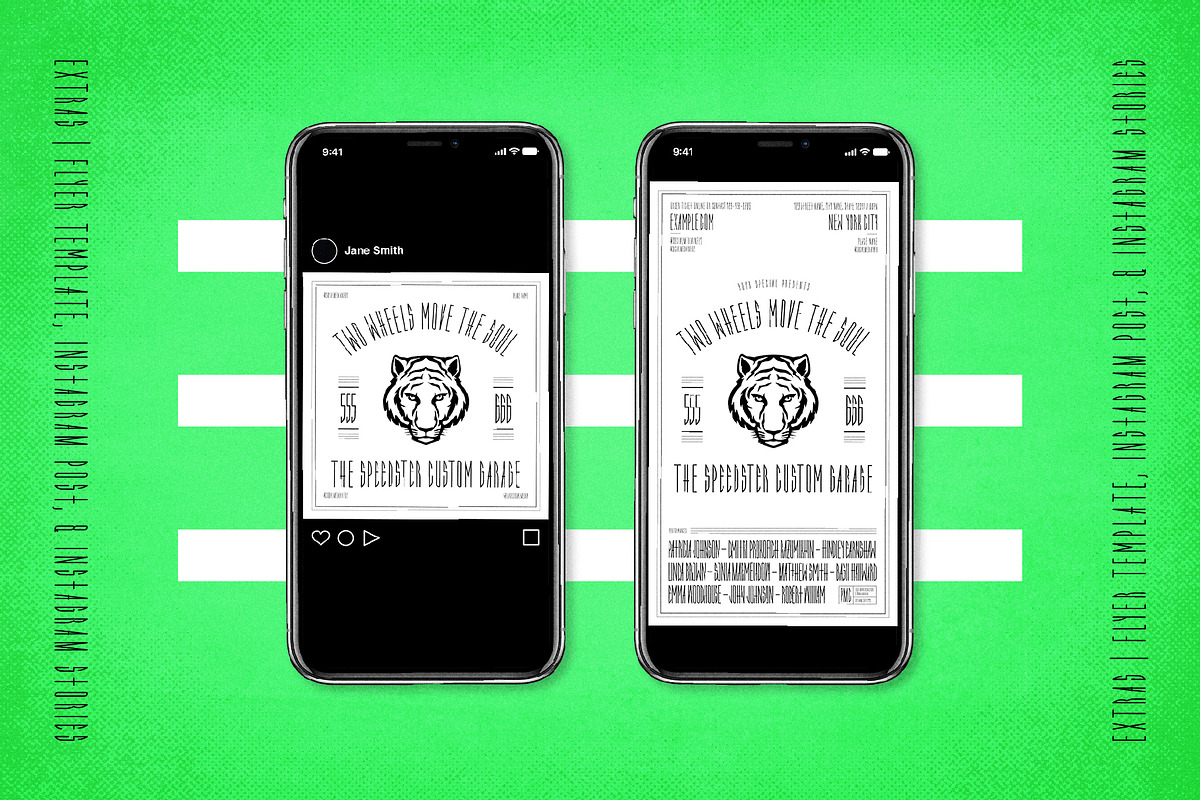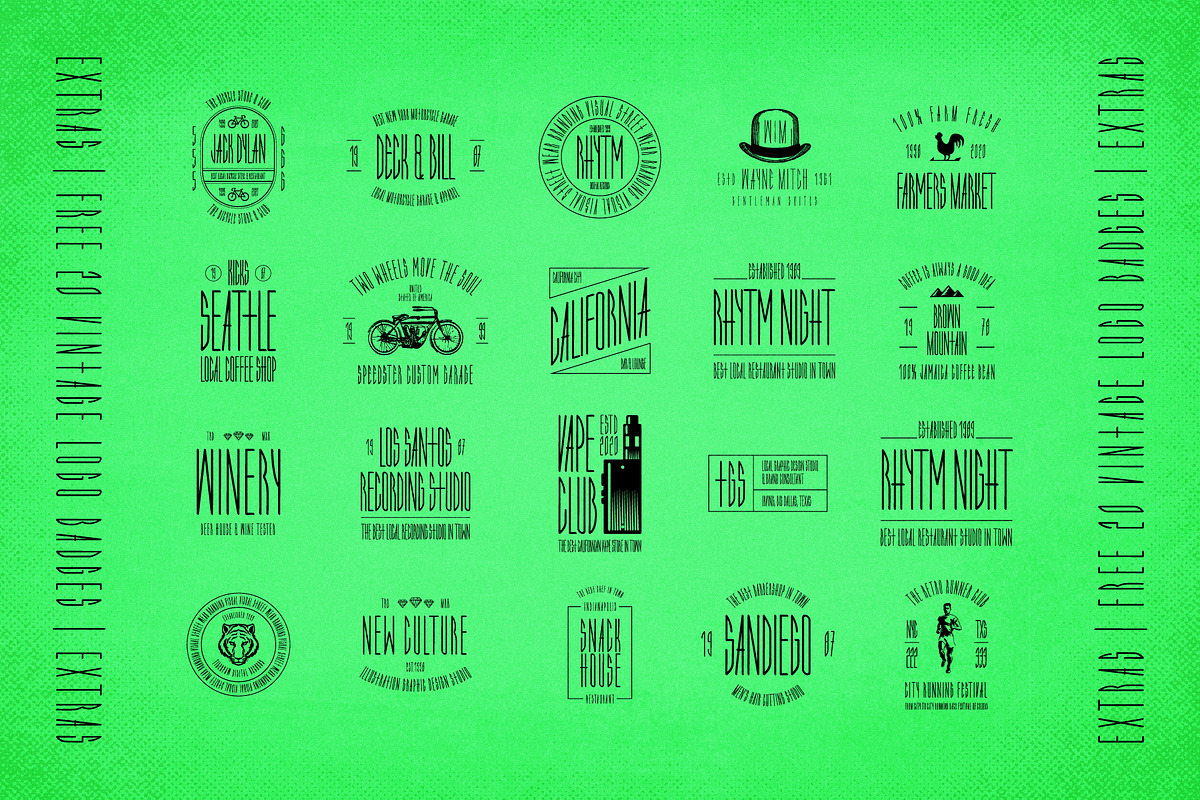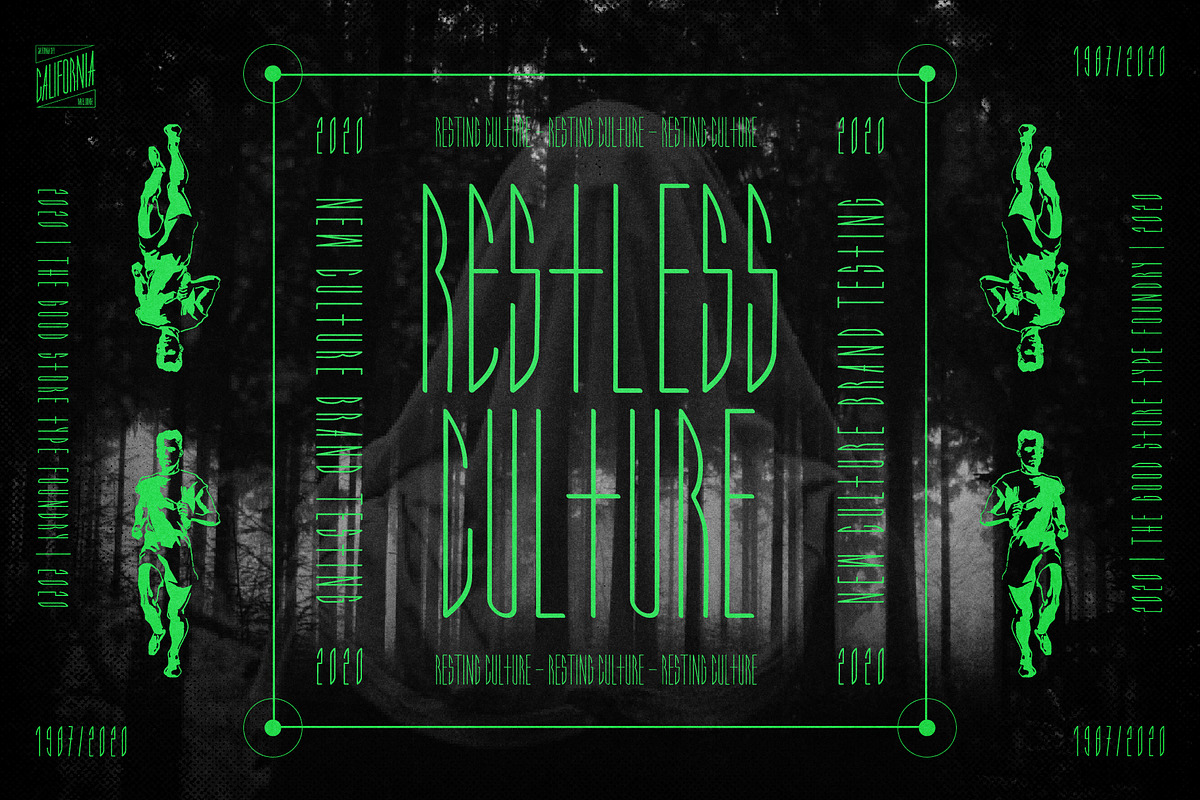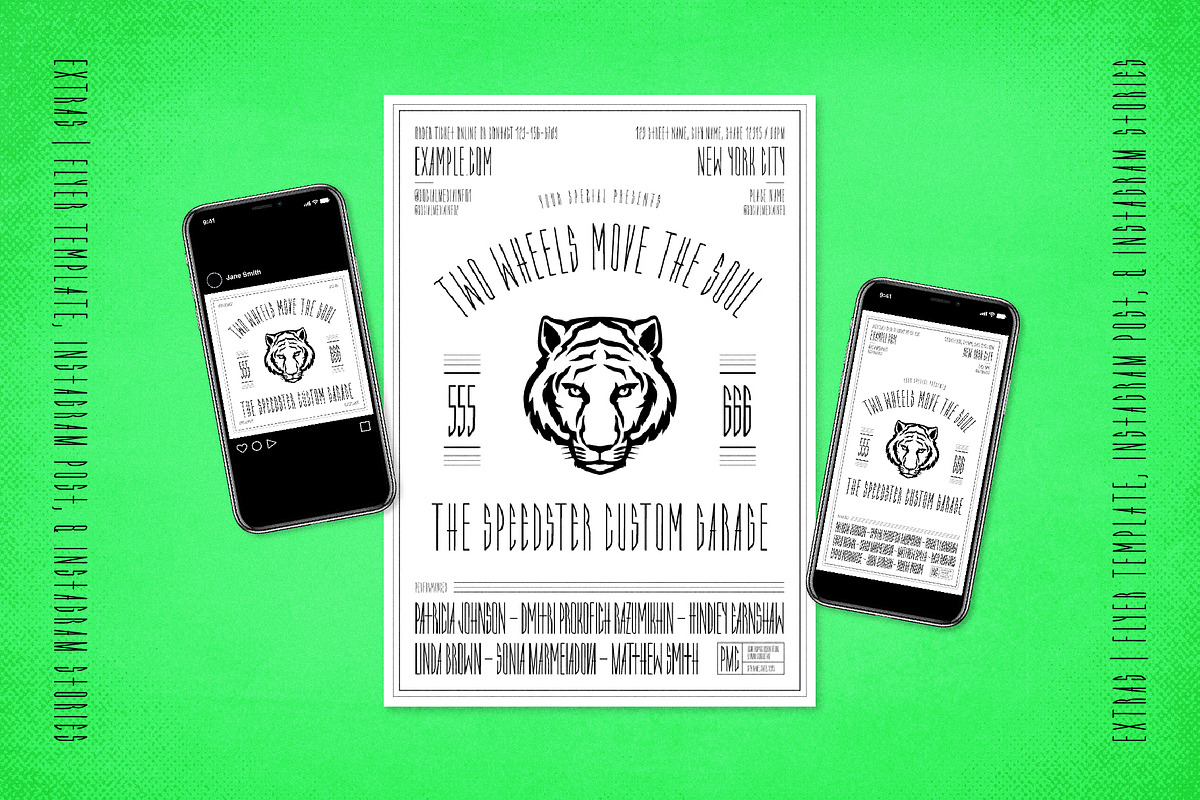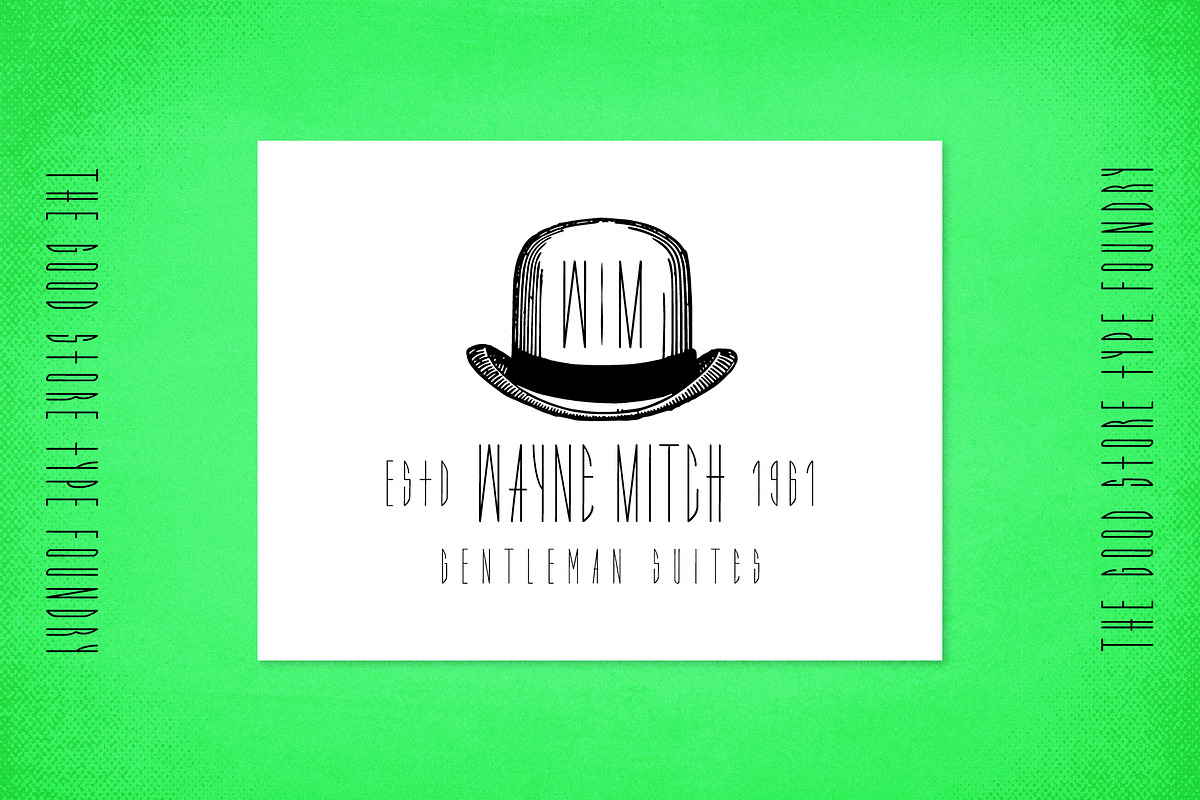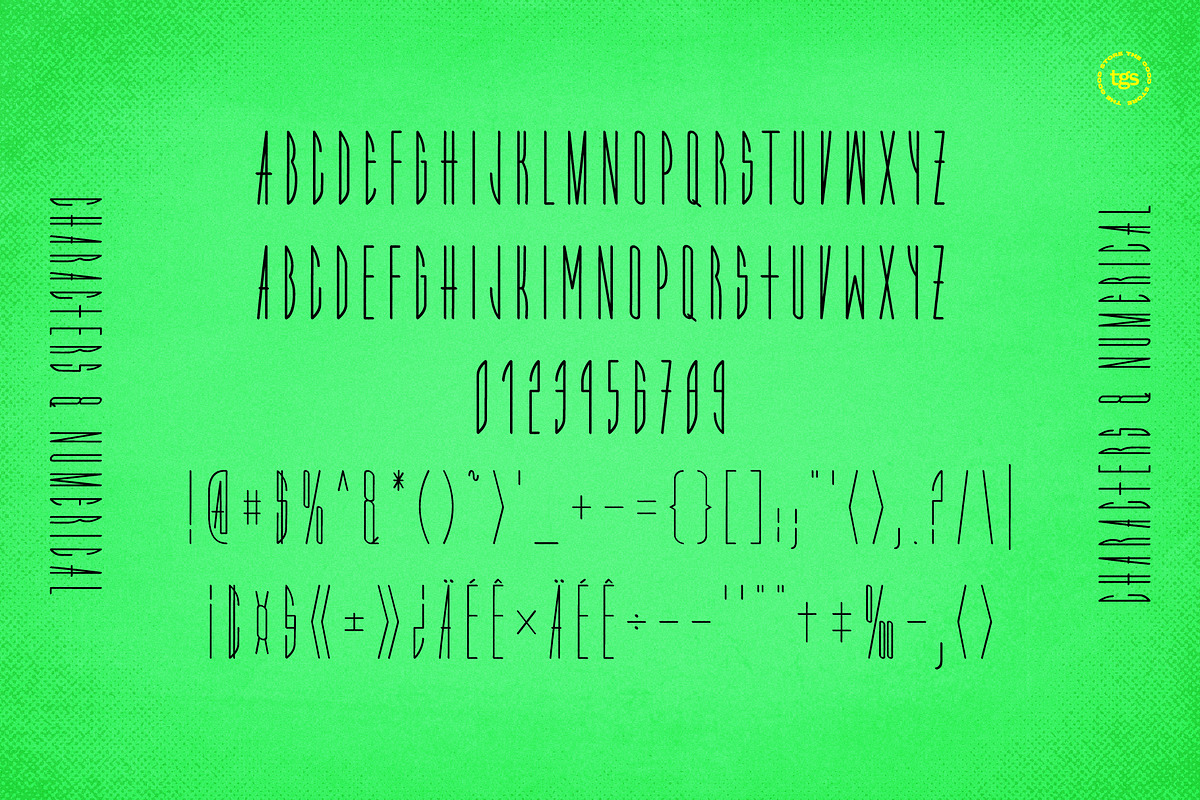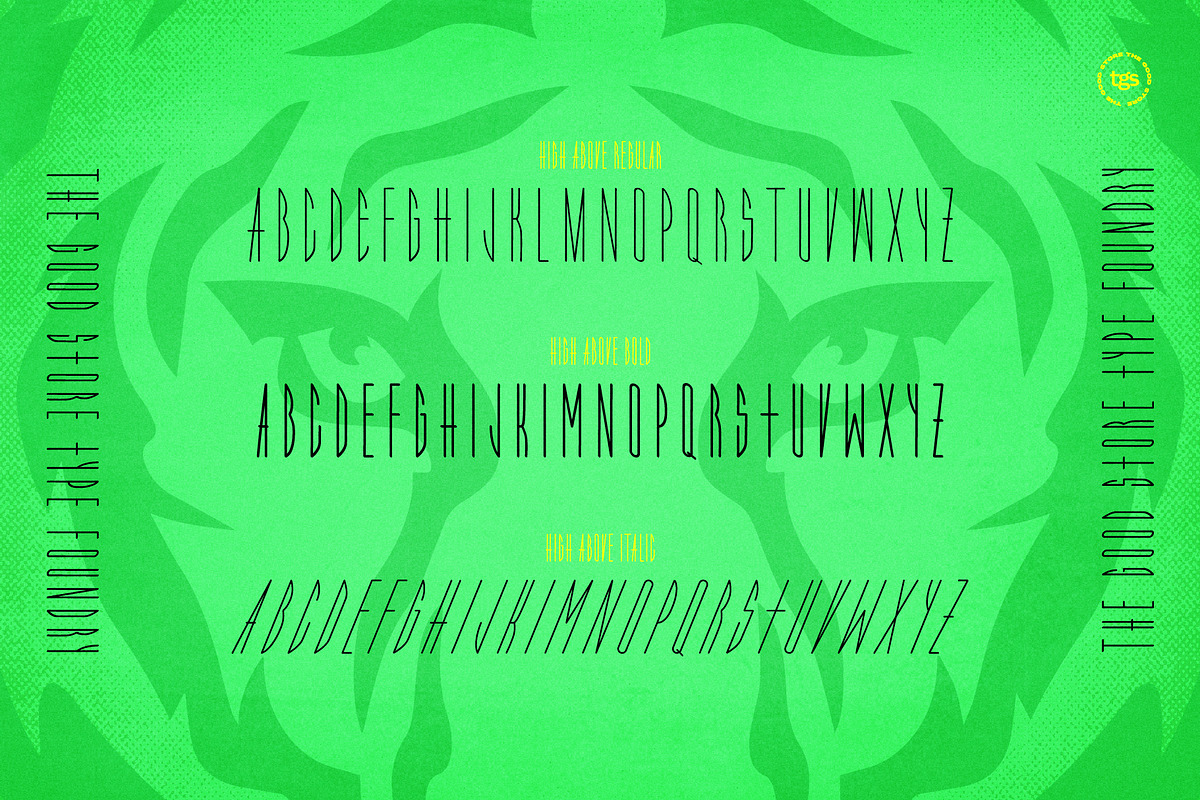
High Above Typeface + Extras
A hand-drawn Super Condensed Display Typeface that comes in Regular, Bold, & Italic styles.
High Above Typeface is a Handmade Sans Display Typeface
High Above Typeface + Extras by The Good Store fits naturally into Branding, posters, packaging, typography.